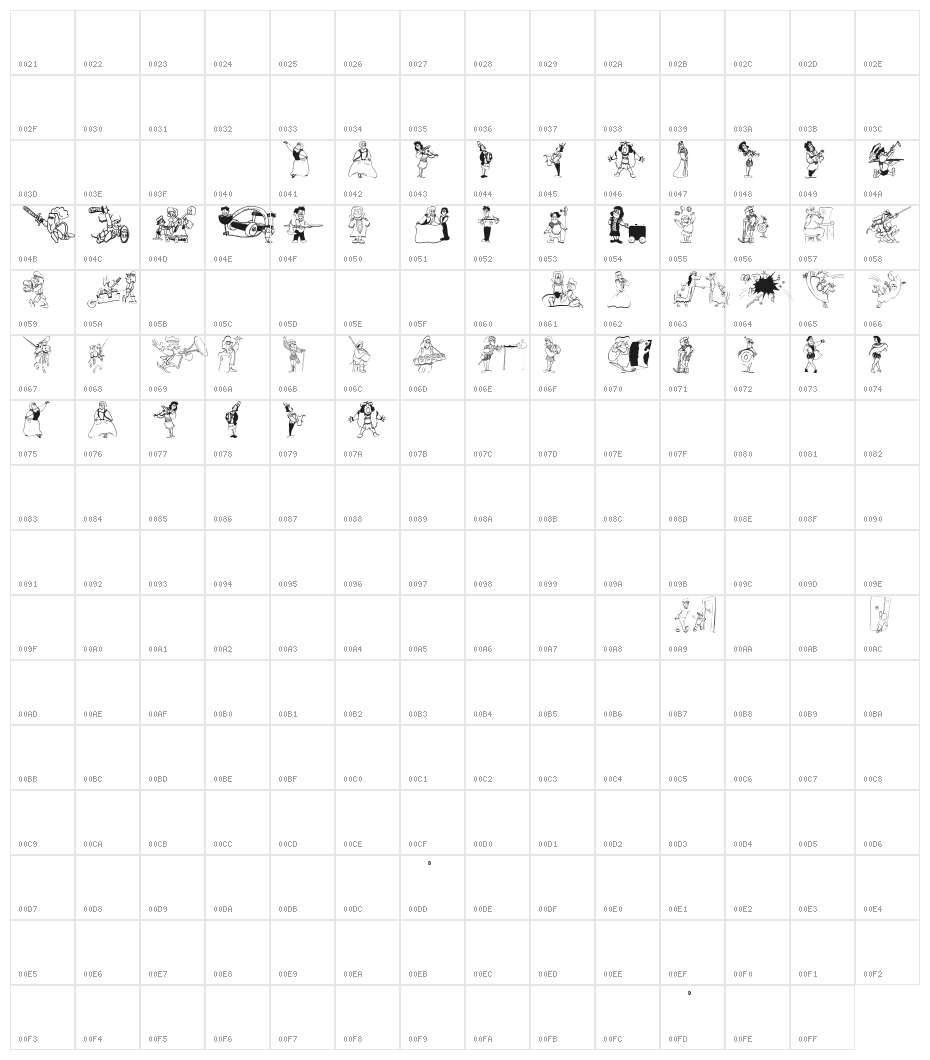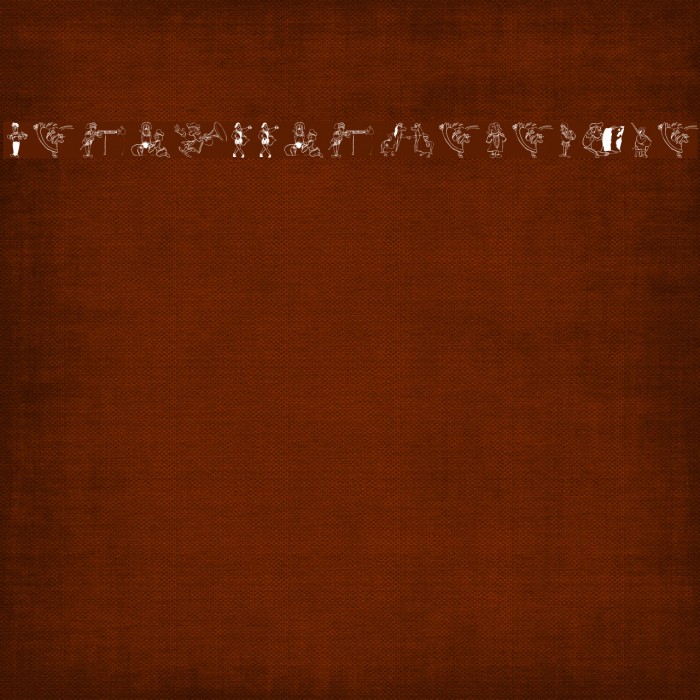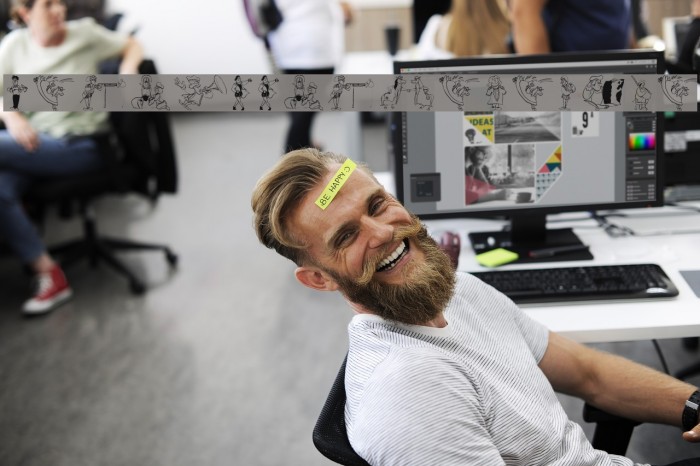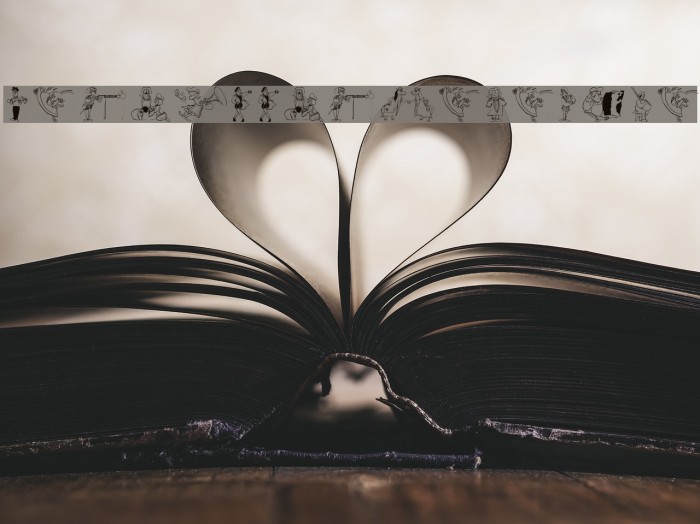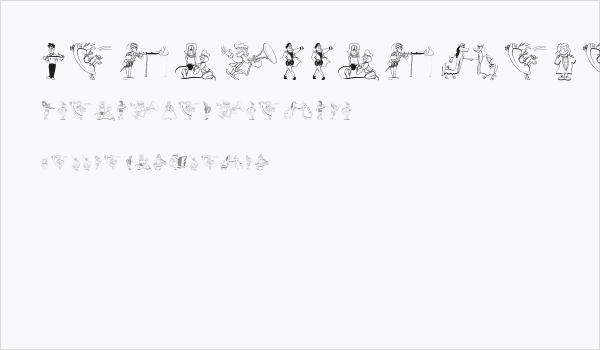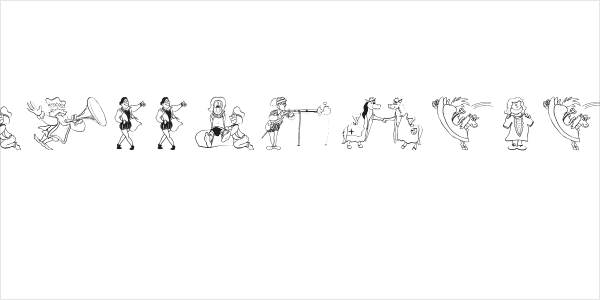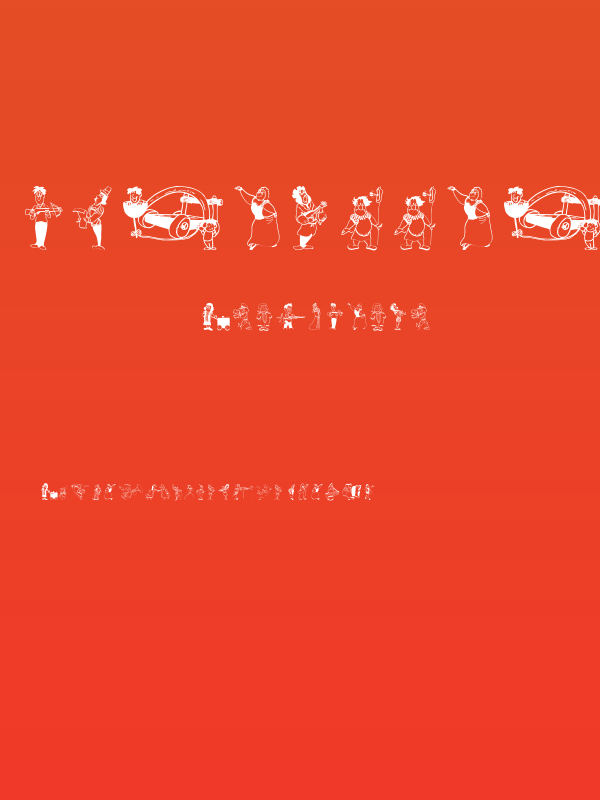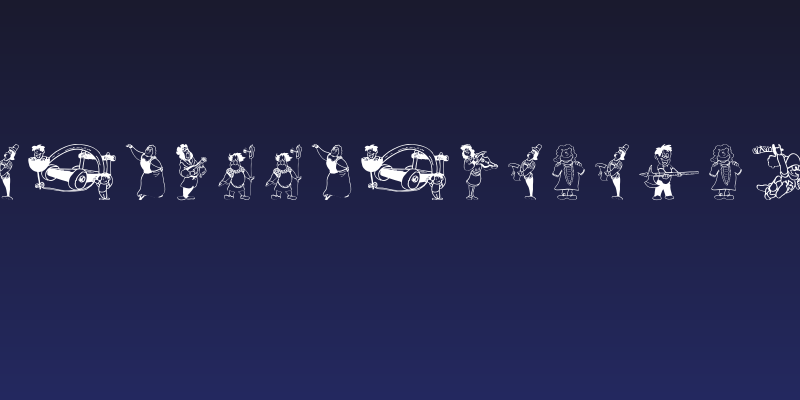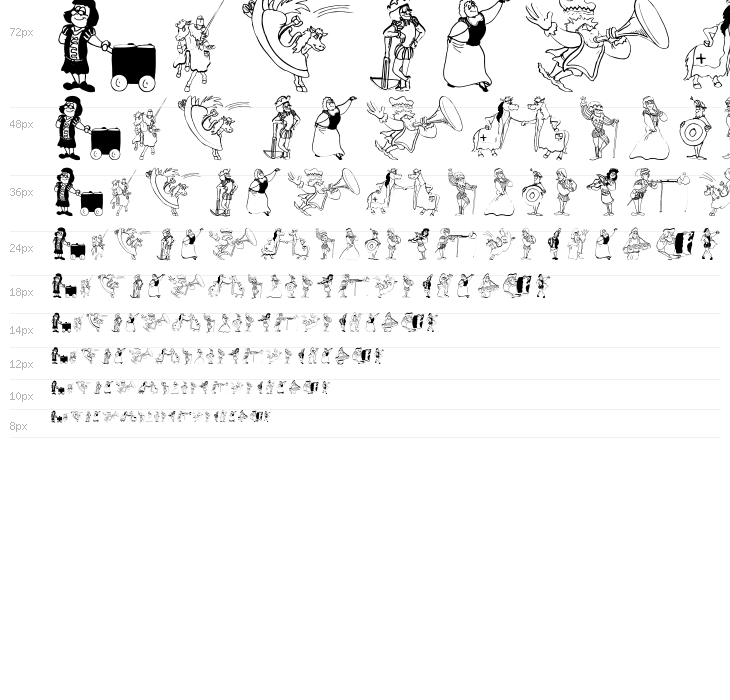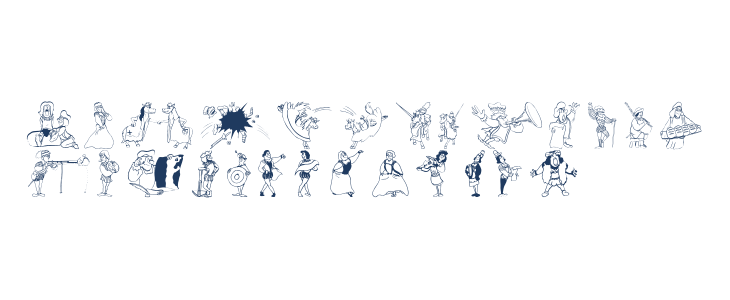
RenaissancePeople Font
RenaissancePeople Description
This is a decorative font featuring whimsical, cartoon-style characters dressed in Renaissance attire. Each character is uniquely designed, capturing various poses and expressions that reflect the playful and artistic essence of the Renaissance period. The font is highly illustrative, with each letter represented by a distinct character, making it more of an artistic representation than a traditional typeface. The characters are detailed, with intricate line work that adds depth and personality to each figure. This font is ideal for projects that require a touch of humor and historical flair, such as themed event invitations, educational materials, or creative storytelling.
Use CaseLogos, Posters, Creative Projects
Proposed ProjectsIdeal for themed event invitations, educational materials, or creative storytelling projects.